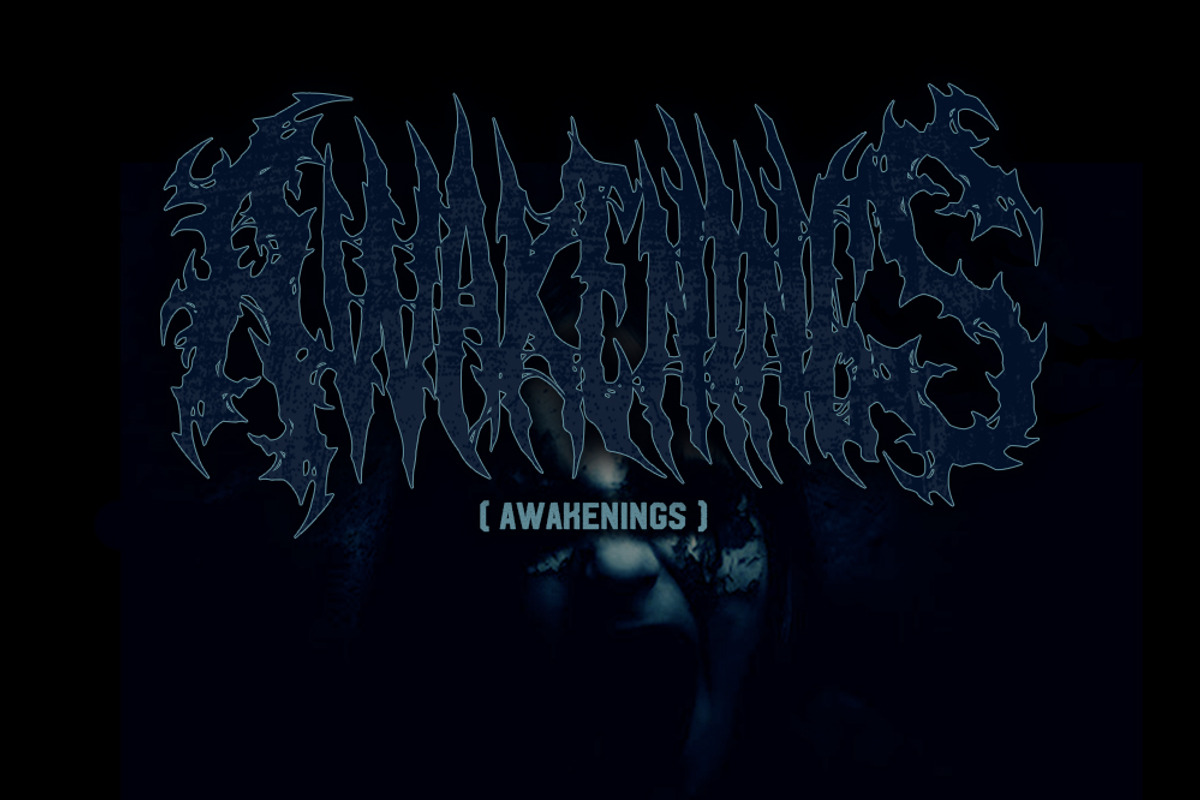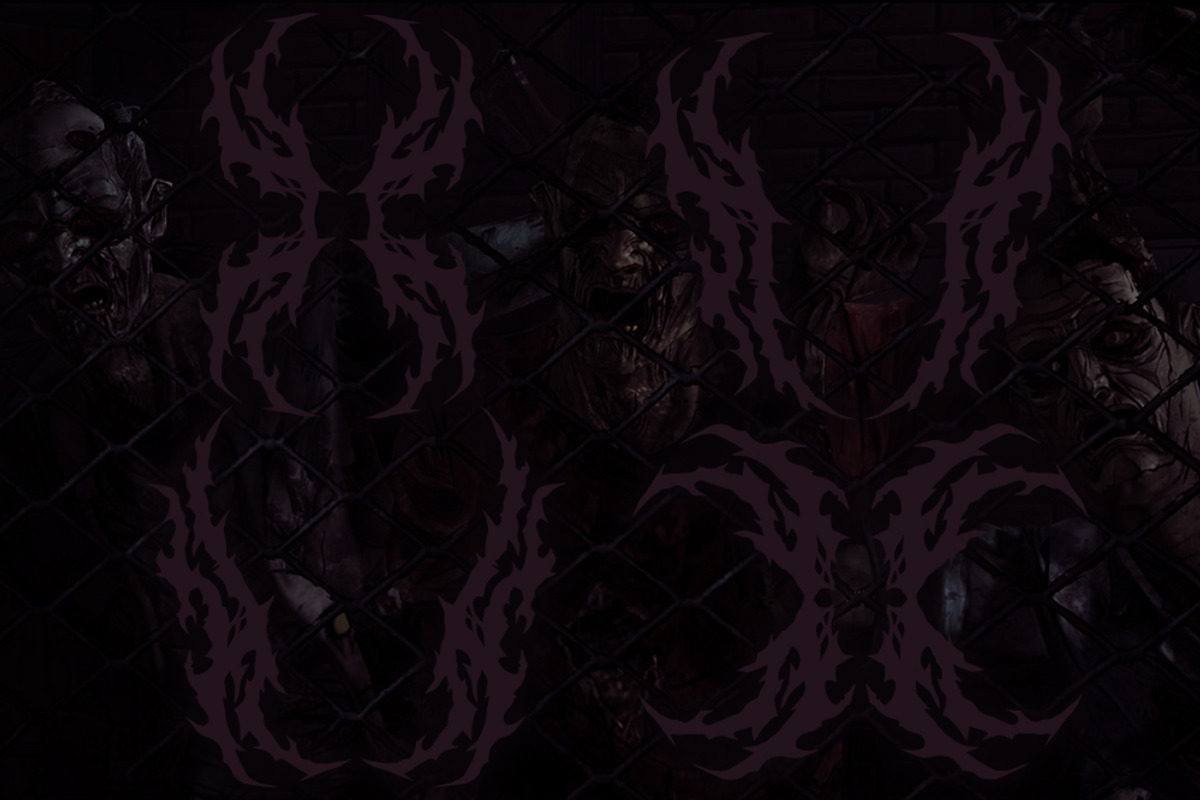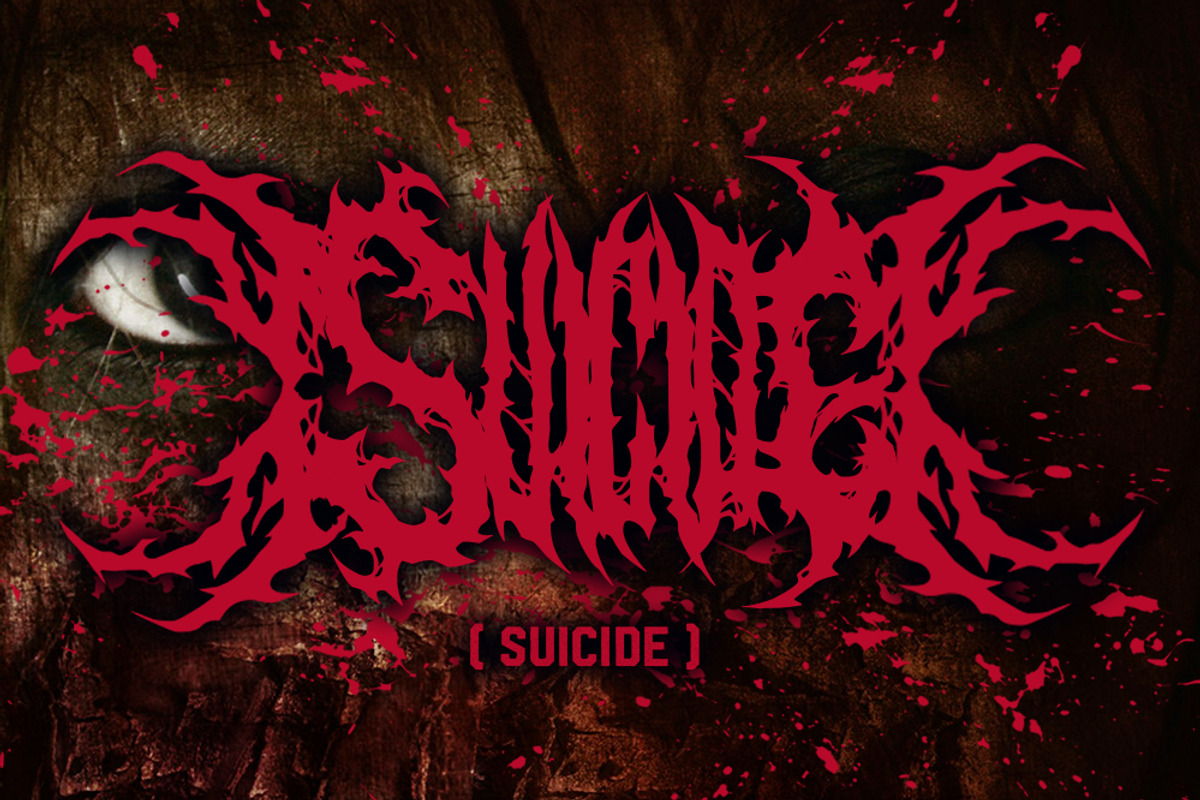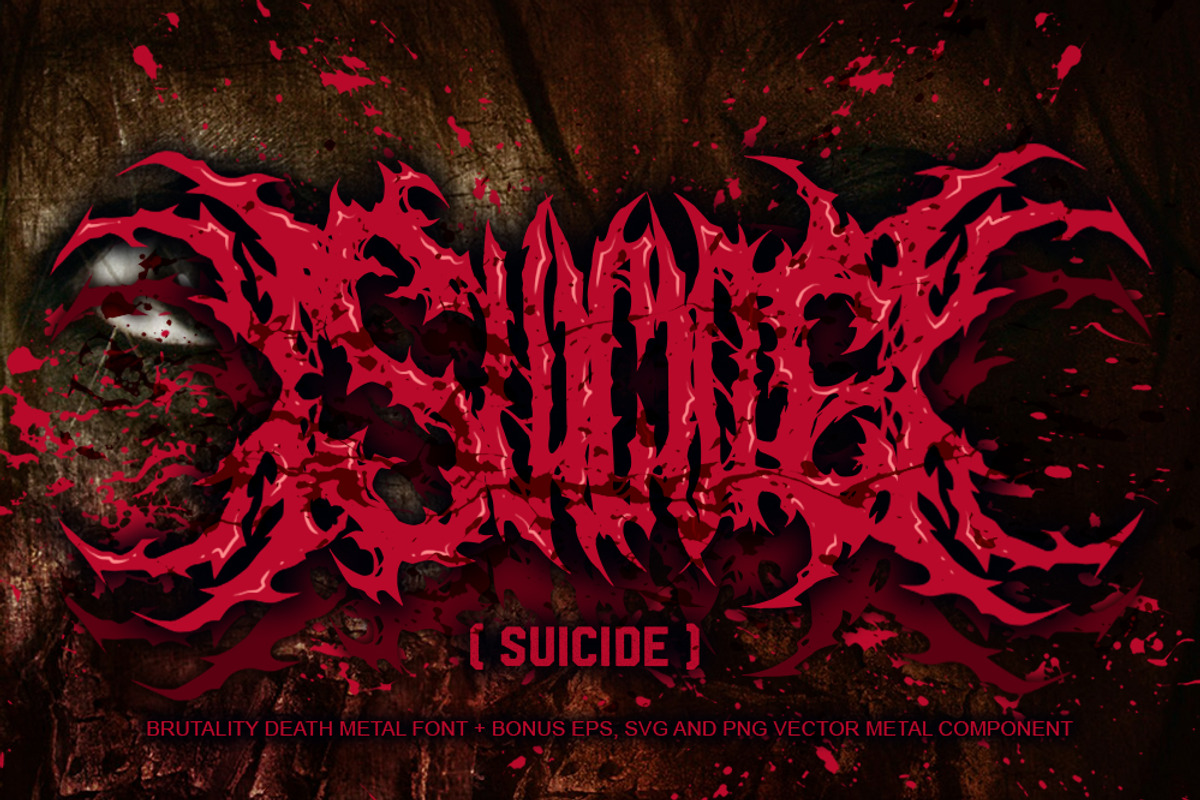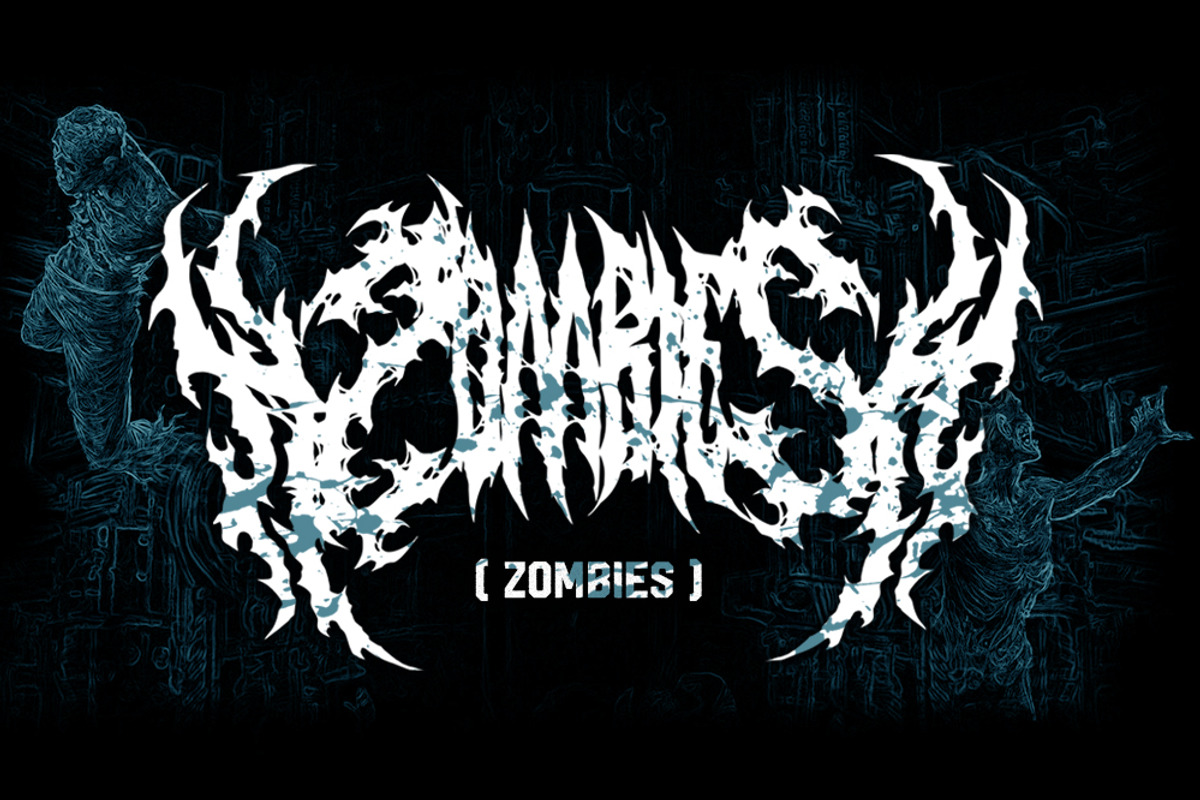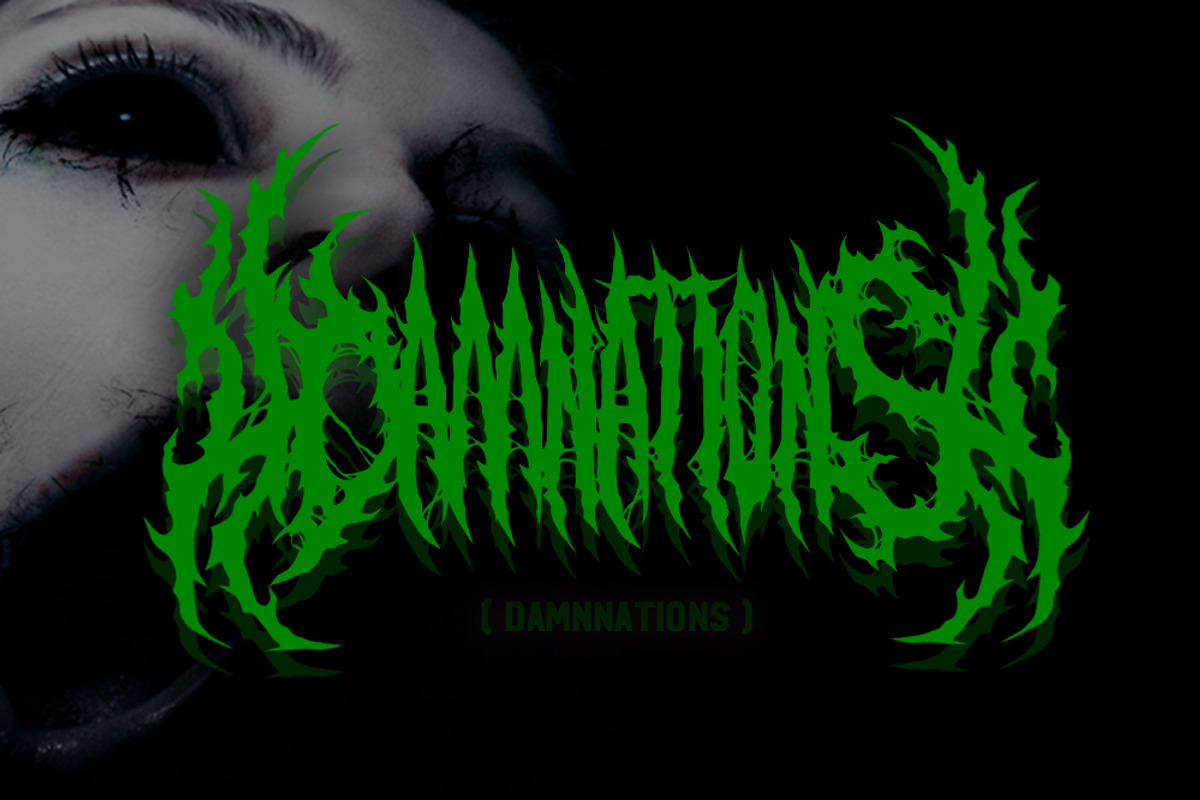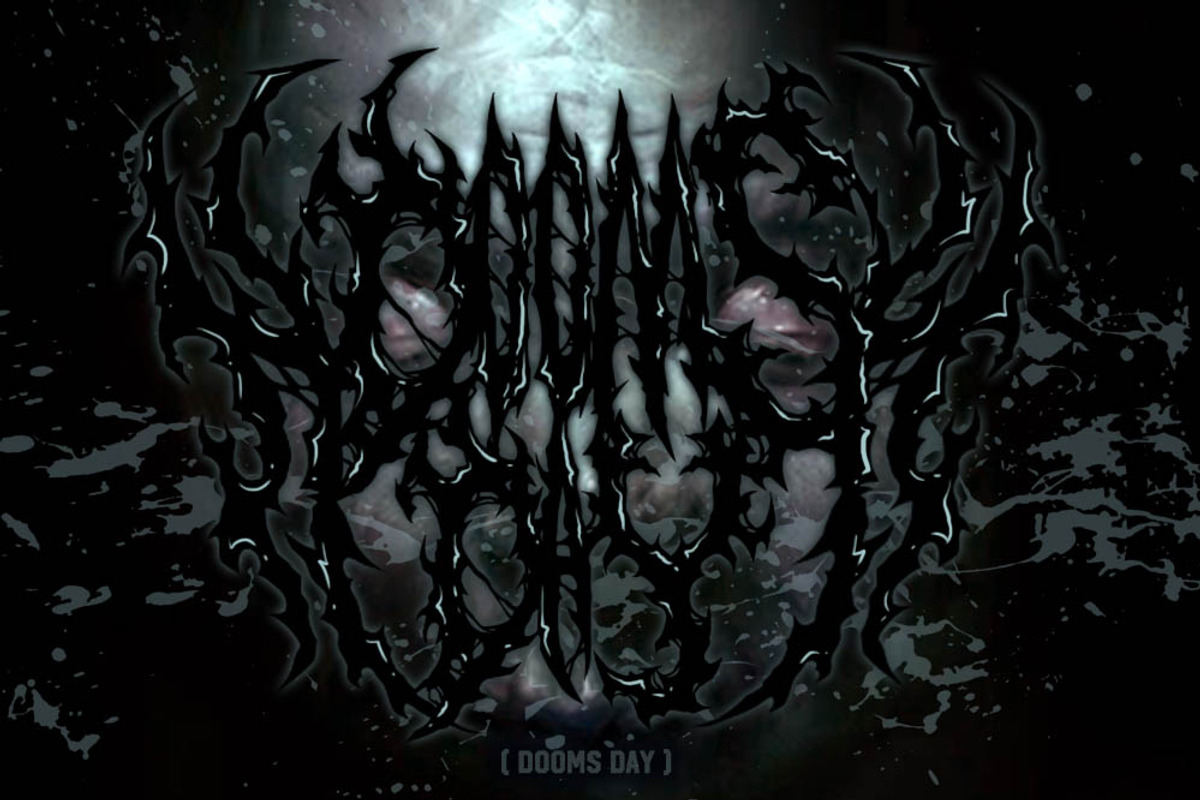
SUICIDE (brutal death metal font #2)
introduce SUICIDE a brutal death metal font volume 2 . can be used for logos or branding and your metal band name without having to pay for expensive logo making services. just by buying this font, you can immediately make your own band or brand logo name. features: